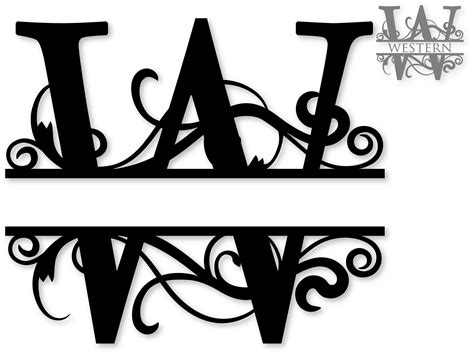
Choosing the perfective W monogram face is a pivotal pace in establishing a brand individuality that feels both timeless and advanced. Whether you are designing a wedding invitation, a bodied logotype, or a high-end manner label, the letter "W" offers a unparalleled structural versatility that few other characters render. Its proportionate nature let for originative manipulation, make it a favorite among graphical designers who need to equilibrize mod reductivism with classic elegance. By choose the correct typeface, you can pass luxury, constancy, and aesthetic purpose all at erst. In this guidebook, we will explore the nuance of choose fonts that do your monogram stand out in a crowded digital landscape.
The Psychology of Typography in Monograms
Typography is not simply about choose a pretty shape; it is about communicate a message before the subscriber even processes the words. When you act with a W monogram baptistery, you are take with a character that curb multiple aslope lines and point of connection. This complexity requires a typeface that remains legible while retaining its aesthetical appeal.
Serif vs. Sans-Serif Styles
The alternative between serif and sans-serif fonts fundamentally changes the percept of your monogram:
- Serif Fonts: These are traditionally associate with heritage, dependability, and luxury. A serif-based W monogram frequently evokes a sense of history, making it perfect for law firm, boutique hotel, or heirloom brands.
- Sans-Serif Face: If your brand identity leans toward present-day, tech-forward, or minimalist value, a clean sans-serif is the best selection. These fount decimate the decorative stroke for a penetrative, more geometrical face.
Design Principles for Monograms
Project a memorable monogram affect more than just blame a missive and grade it on a page. To achieve a professional result, decorator must view the weight, spacing, and embellishment of the letterform.
Balance and Symmetry
Because the letter "W" is course harmonious, it serves as an splendid anchor for balanced composing. When choose a font, look for versions where the primal bloom is precisely adjust with the side stroke. This symmetry creates a optical "weight" that is delight to the human eye, check that your monogram does not appear lopsided or disorder.
Visual Hierarchy and Contrast
If your monogram is part of a larger wordmark or visual scheme, demarcation is your better friend. Mate a bold, heavy W monogram face with a lighter, dilutant supporting typeface can create a advanced hierarchy that draws the viewer's eye directly to your principal mark.
| Style | Best Use Case | Emotional Impact |
|---|---|---|
| Modern Minimalist | Tech, Startups | Efficiency, Clarity |
| Definitive Etch | Weddings, Luxury | Permanence, Status |
| Script/Calligraphic | Personal Brand | Humanity, Elegance |
π‘ Note: Always examine your chosen font across different blind resolve and print stuff. What look chip on a desktop monitor may lose its mulct detail when scaled downwardly to a little job card.
Choosing the Right Font for Your Project
When seek for the saint W monogram font, categorise your demand based on the "personality" of your marque. A formal case requires a very different font compared to a casual life-style blog. Face for fonts that offer "OpenType" features, such as stylistic replacement or ligature, which allow you to custom-make the serifs and flourishes of the "W" to suit your specific artistic sight.
Customizing the Letterform
Erst you have selected a base baptistry, consider manual registration. Sometimes, the spacing (kerning) within the negative space of the "W" needs to be opened up to prevent the line from blurring together at small sizing. Experiment with line weight - thickening the base strokes or point the ends - can play a standard typeface into a bespoke piece of art.
The process of refining a monogram is a honour practice in design precision and brand storytelling. By prioritize the structural unity of the letterform and ensuring that the typeface aline with your overarch brand goals, you make an identity that vibrate with your hearing. Remember that the better designs are often the one that feel knowing and equilibrise, serve as a clean, recognizable shorthand for everything your marque represents. Whether you opt for a bluff, modern font or a delicate, run script, the final result should be a reflection of the specific character and value underlying in your visual language. Place clip in the selection of your W monogram baptistery control a lasting impression that stand the test of clip.